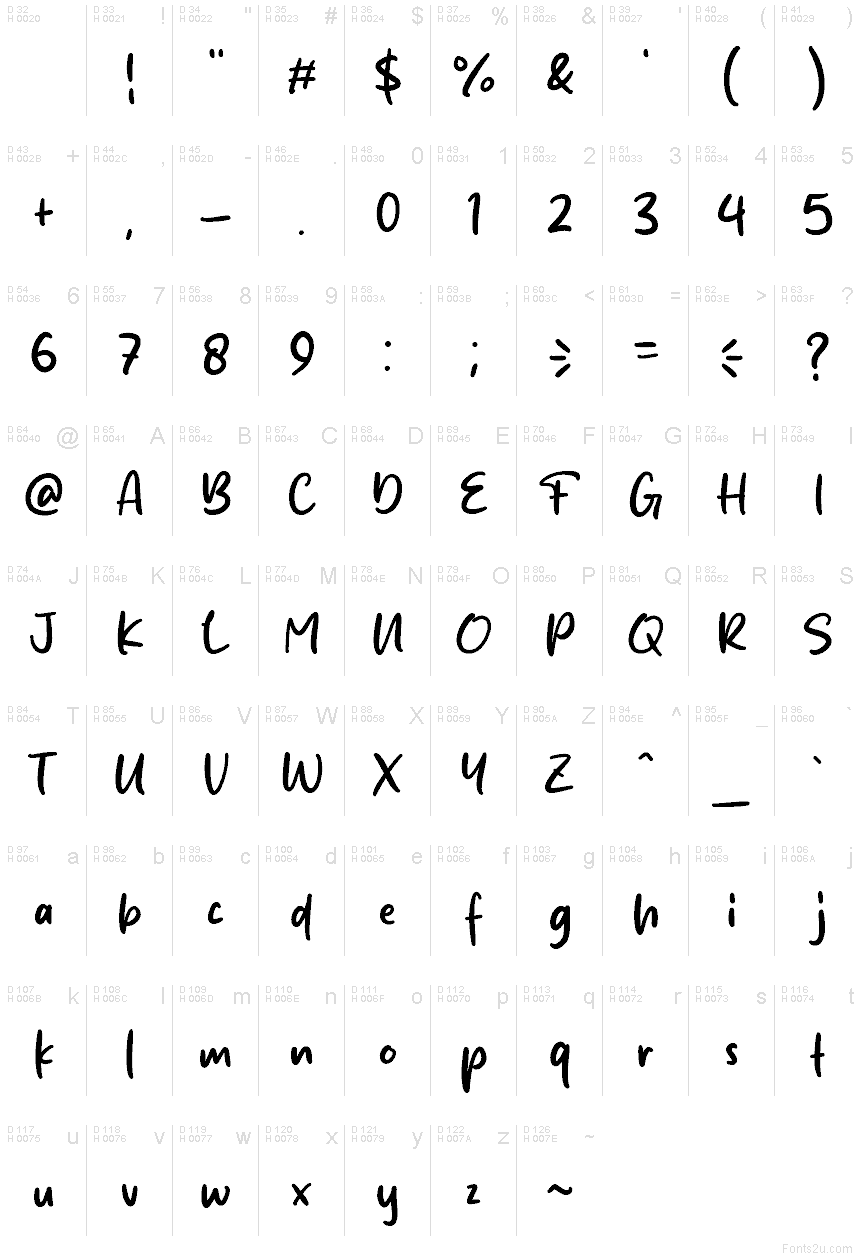
Melon Fruit
Melon Fruit font by MJType is a free bold brush handwritten font. It stands out with juicy, inky strokes and rounded terminals that feel freshly drawn—casual, but not sloppy. The letters ride a gentle, bouncy rhythm with even spacing, so headlines read smooth and friendly instead of chaotic. Subtle tapering and soft curves give it a lively, human pulse that’s hard to fake with generic scripts.
Using Melon Fruit, your type pops on cafe menus, farmers’ market signs, food packaging, lifestyle branding, recipe blogs, social media quotes, and event invites. This free font shines at larger sizes where its brush texture can breathe; pair it with a clean geometric sans for small details. It brings warmth and approachability without losing clarity, making playful messages feel confidently crafted.